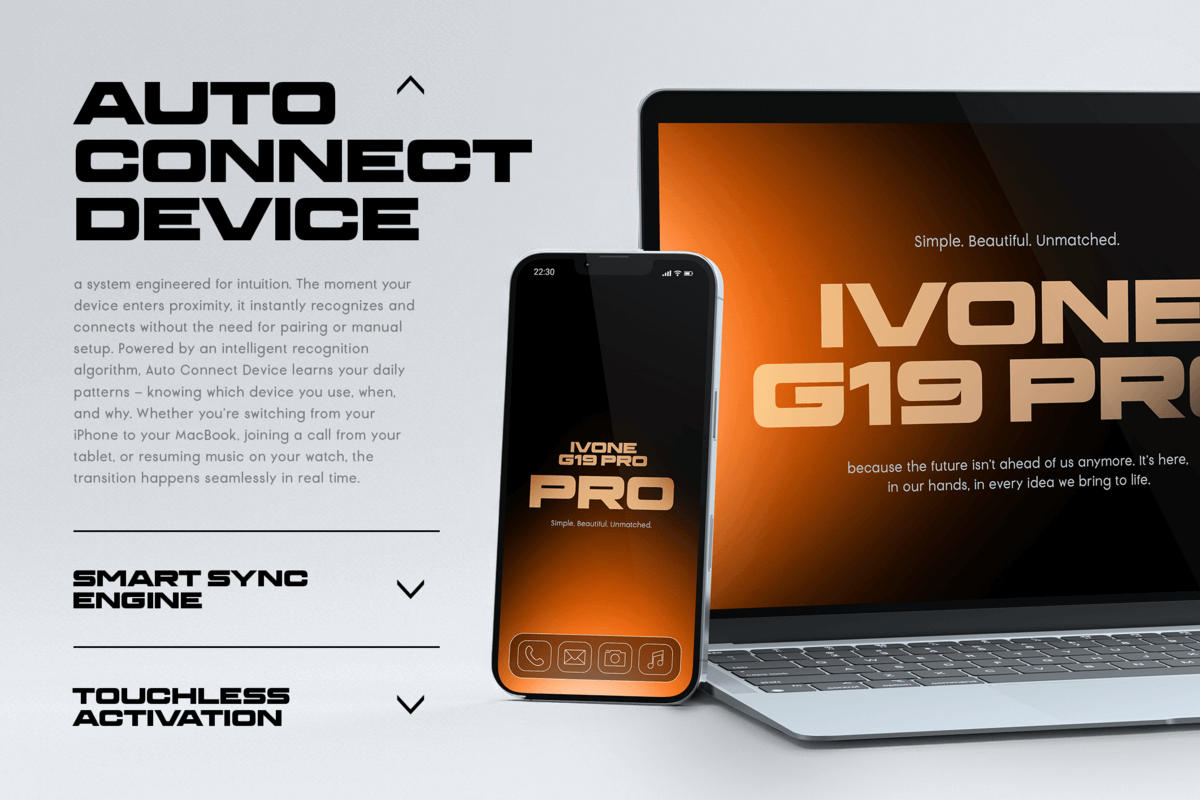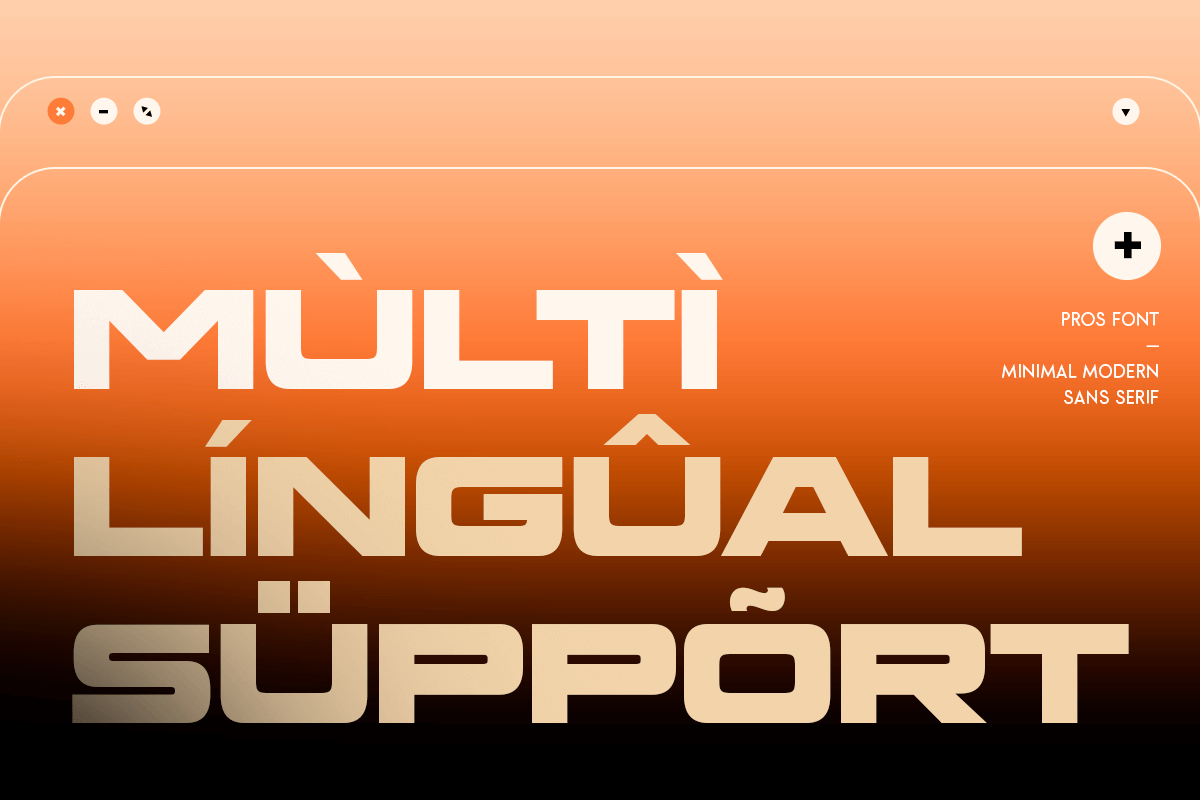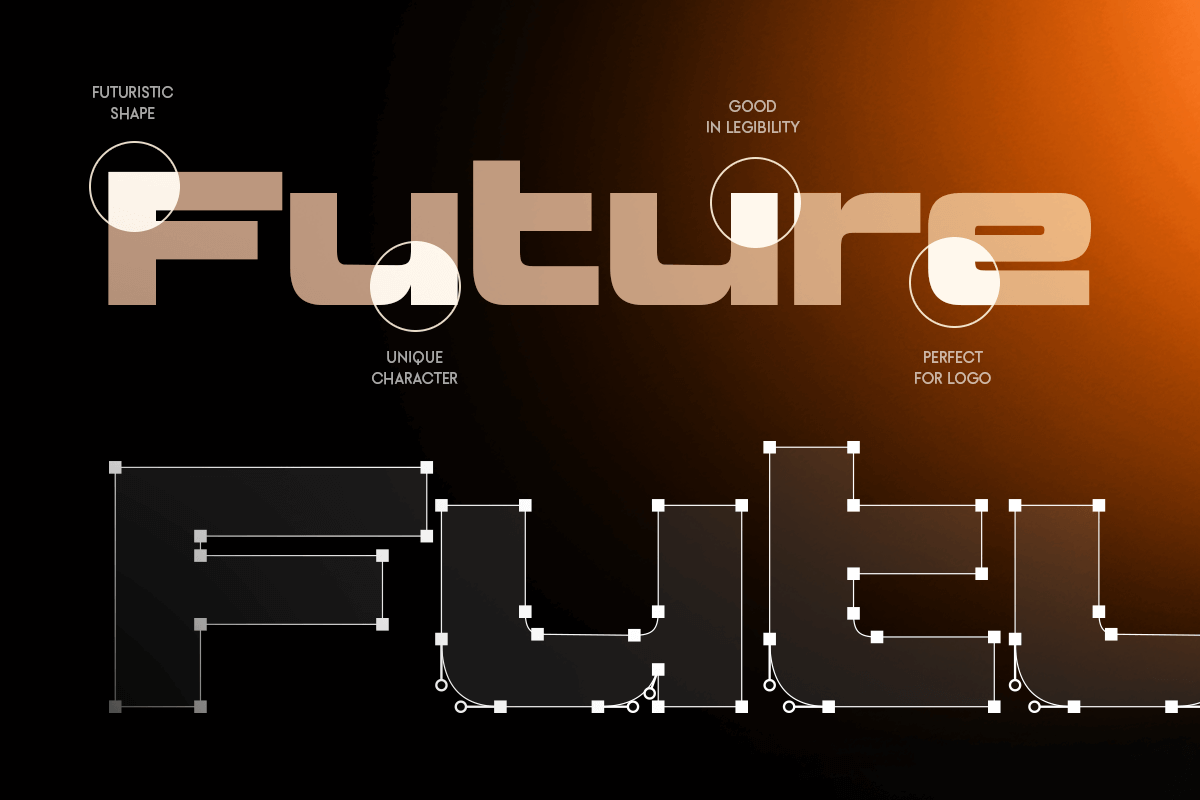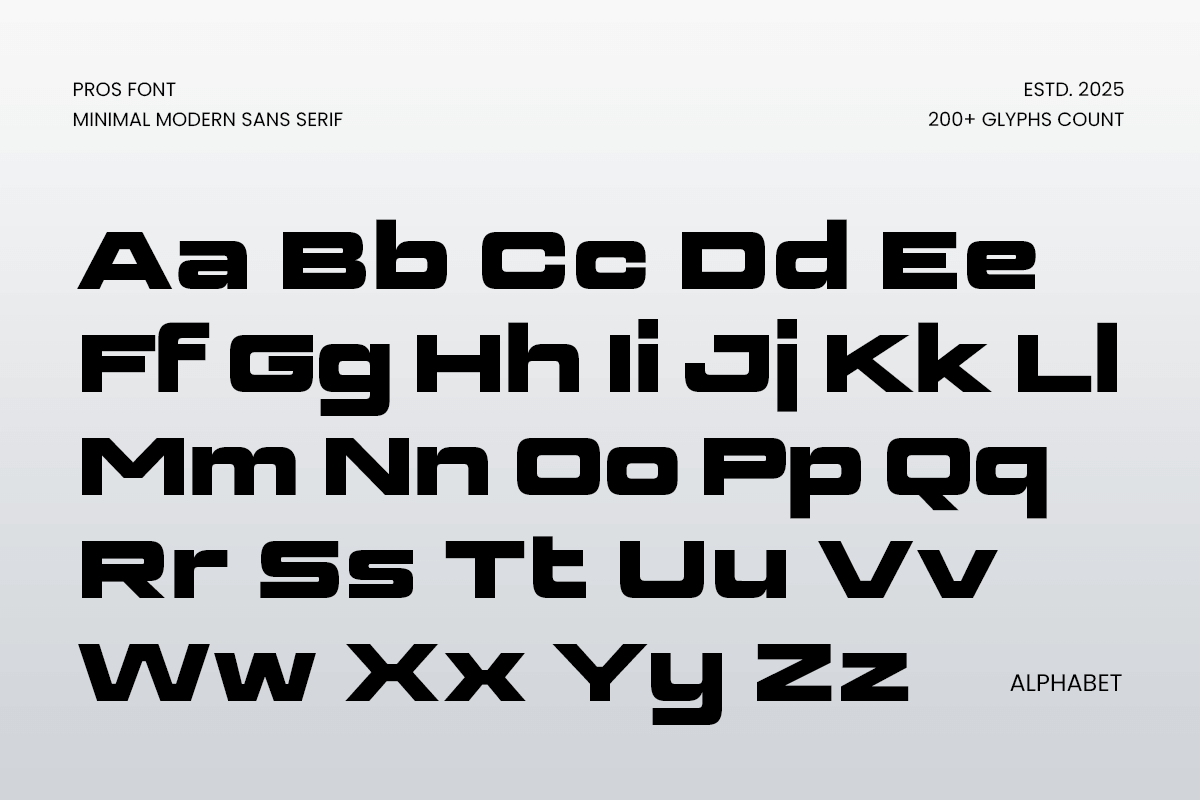
Pros – Minimal Modern Sans Serif Font
PROS is a minimal modern sans serif font designed to express clarity, sophistication, and timeless design. Built with geometric precision and subtle elegance, this typeface is ideal for branding, editorial design, packaging, presentations, and corporate identity.
Perfect for both text and headlines, PROS delivers versatility and refinement in every letter. Its clean proportions and balanced kerning ensure excellent readability while maintaining a strong modern presence. This makes it a go-to choice for creative professionals and businesses seeking a sleek and confident visual tone.
Whether used for luxury branding, technology products, or minimal website layouts, PROS adapts effortlessly to any design system—adding a contemporary and professional feel across all media.
PROS – Minimal Modern Sans Serif Features
- Clean and modern sans serif design for timeless appeal
- Perfect for branding, editorial, websites, and corporate materials
- Elegant geometric structure for refined readability
- Ideal for both print and digital platforms
- OpenType features for advanced design flexibility
Achieve effortless modernity with PROS – the ultimate minimal sans serif font for branding, corporate, and digital design. ✨